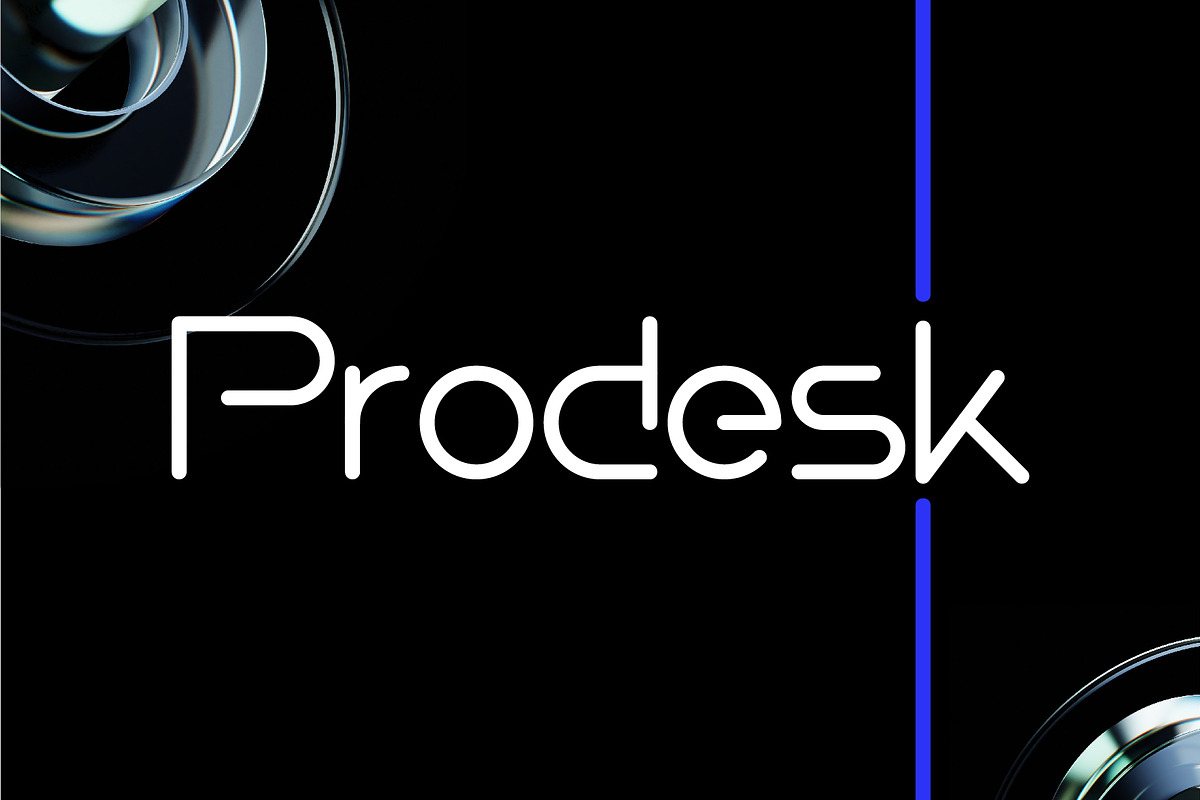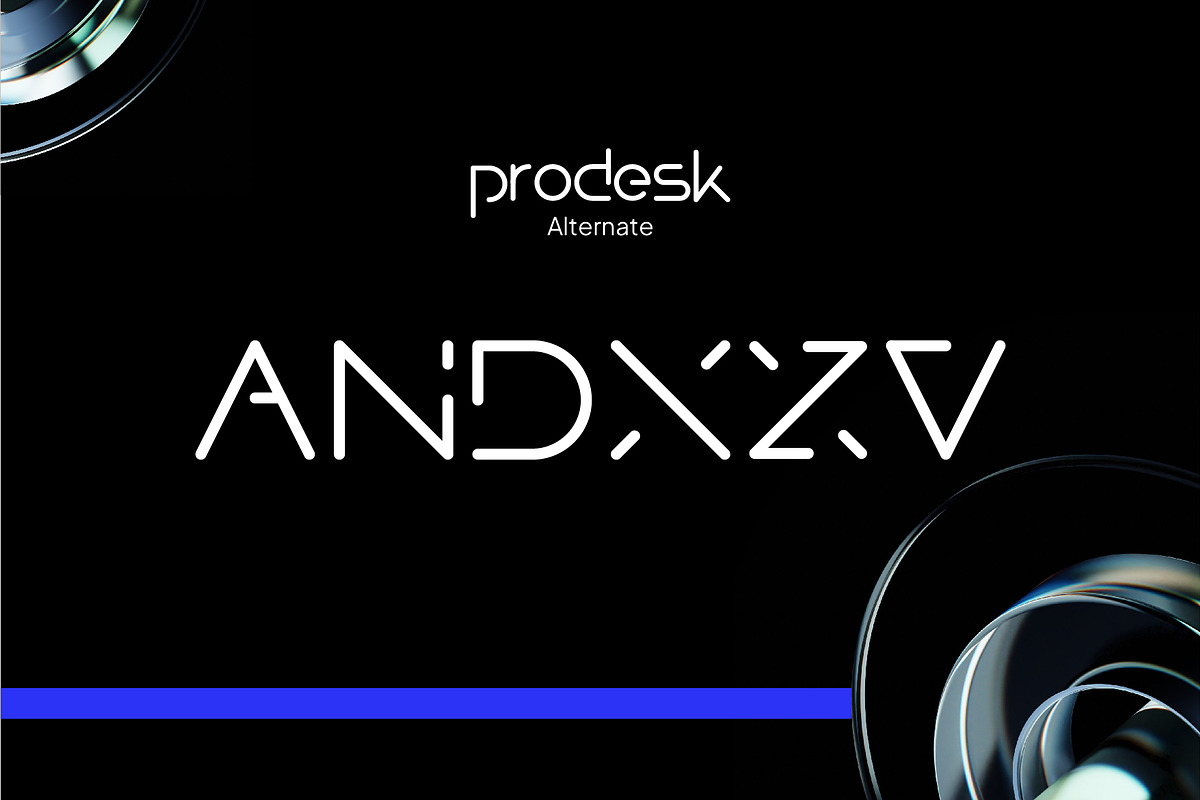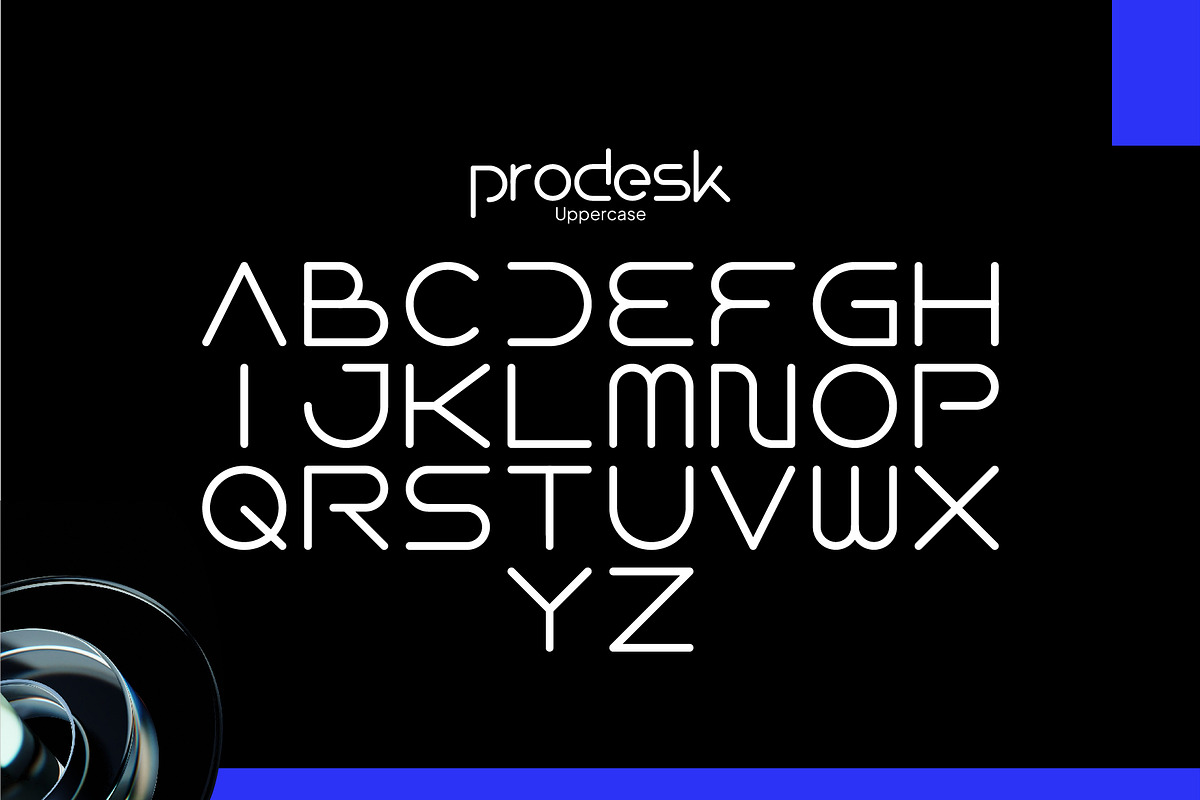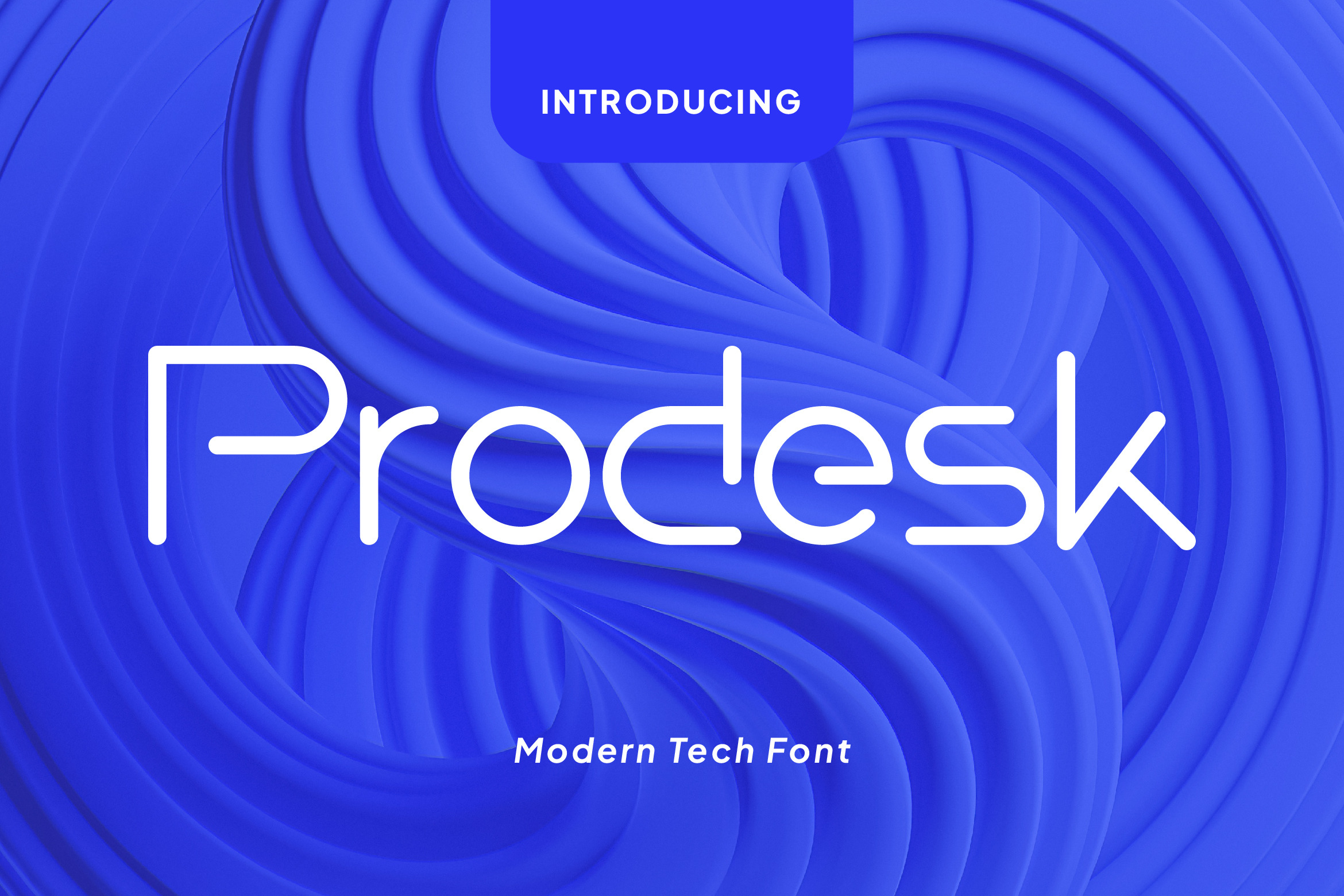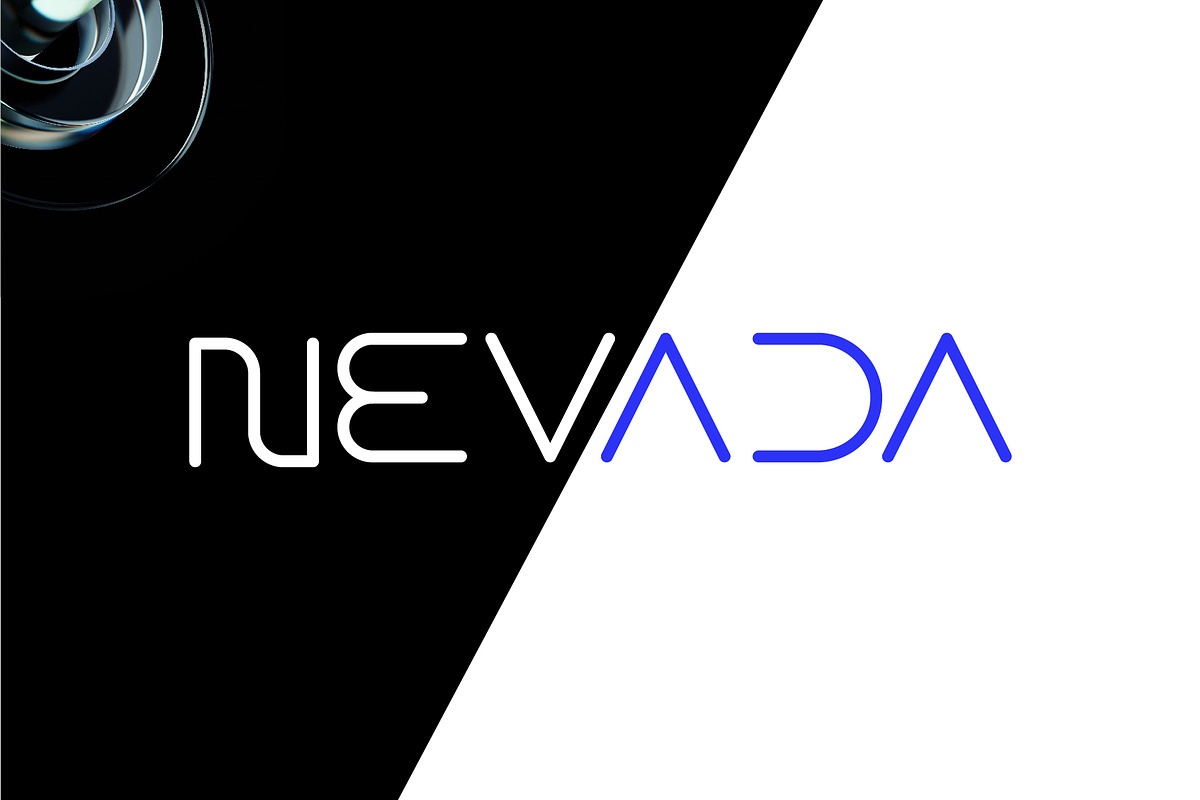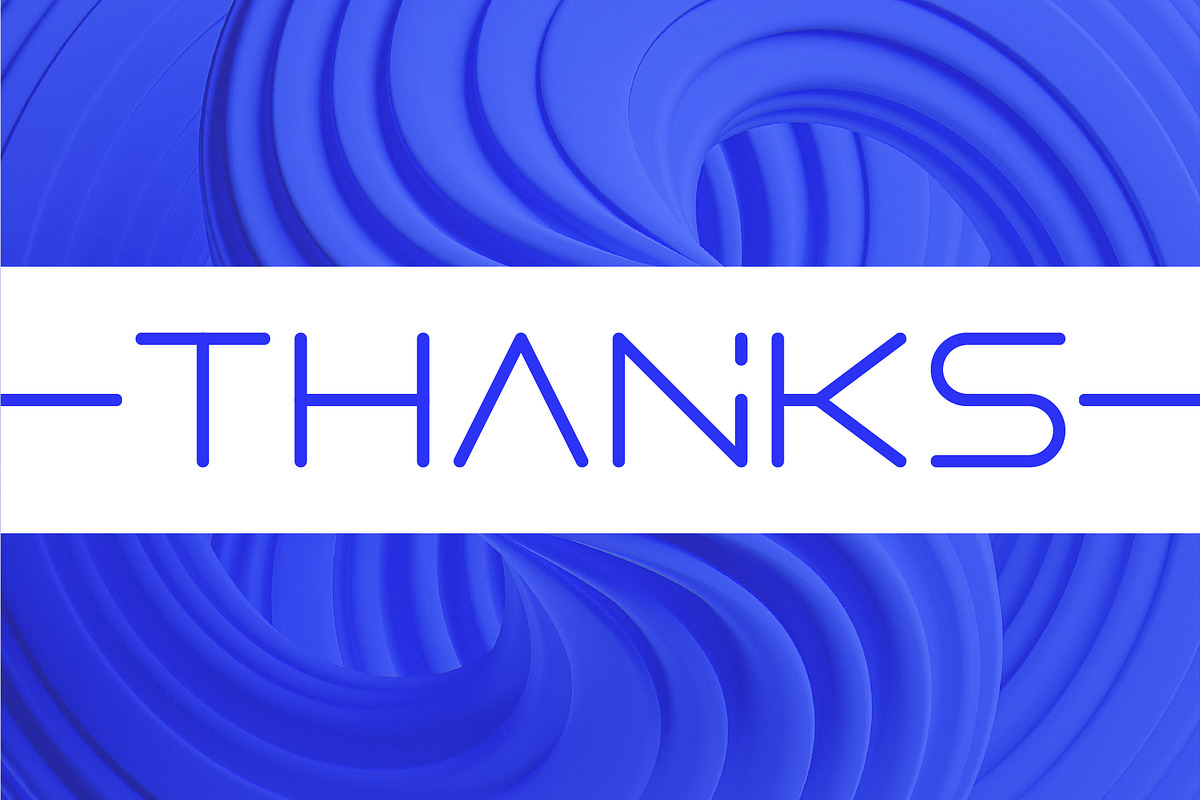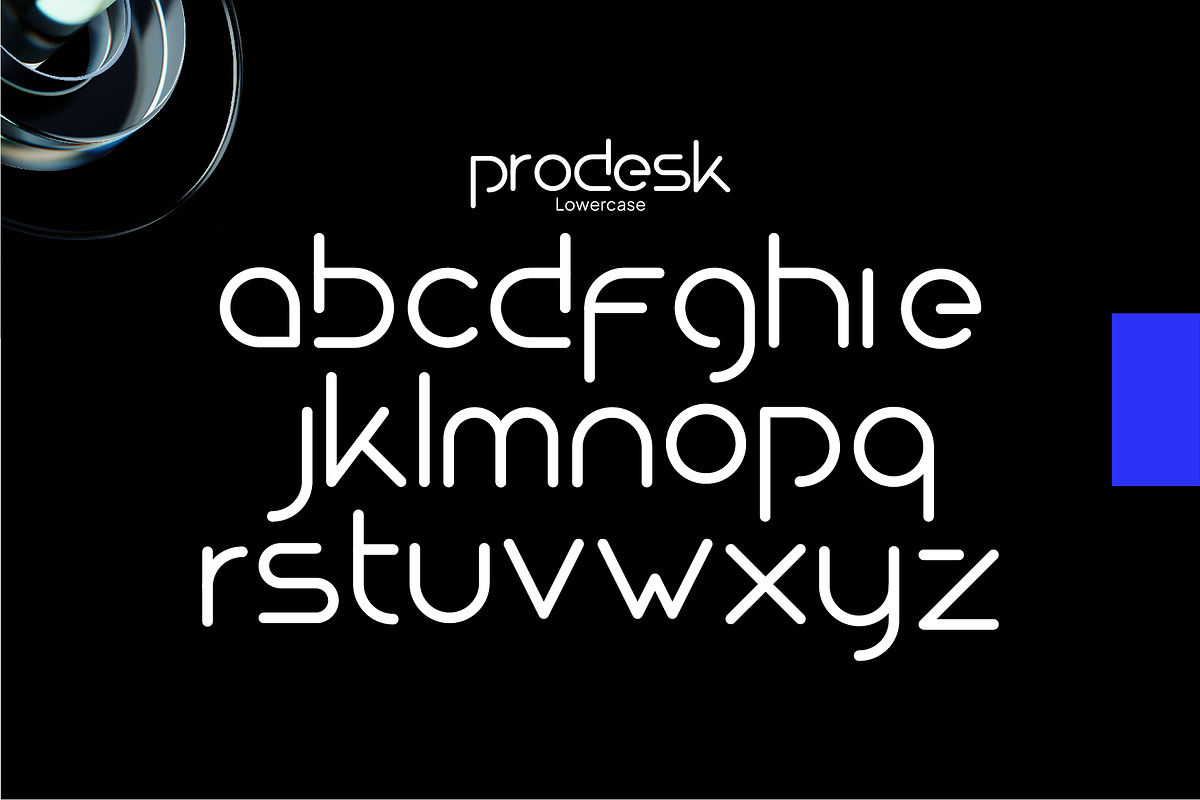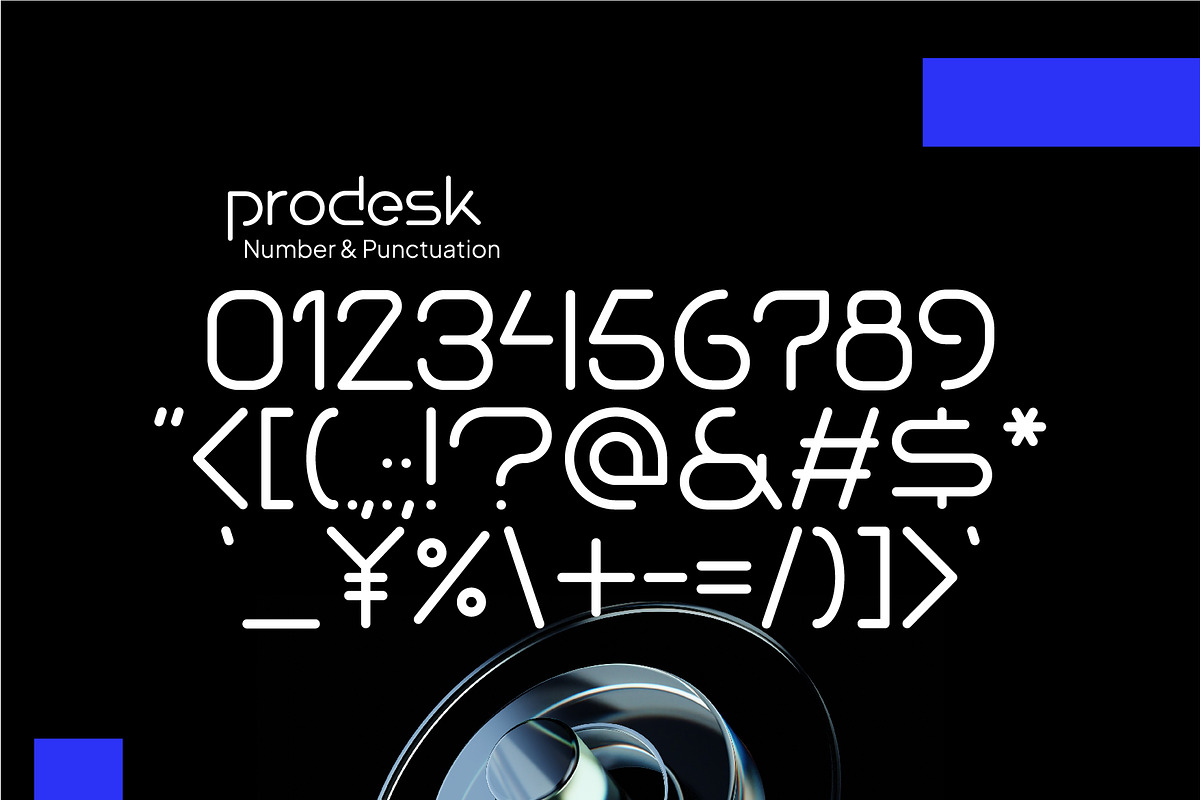
Prodesk - Techno Font
Prodesk is a modern minimalist futuristic sci-fi typeface, perfect for technology, science, and future theme projects; it can perform best as a headline, title, logo, and many more.
Note: Please keep in mind that this is a display font. It is intended to be used as a heading, title, branding, logo, wordmark, and other application rather than typing a body text.